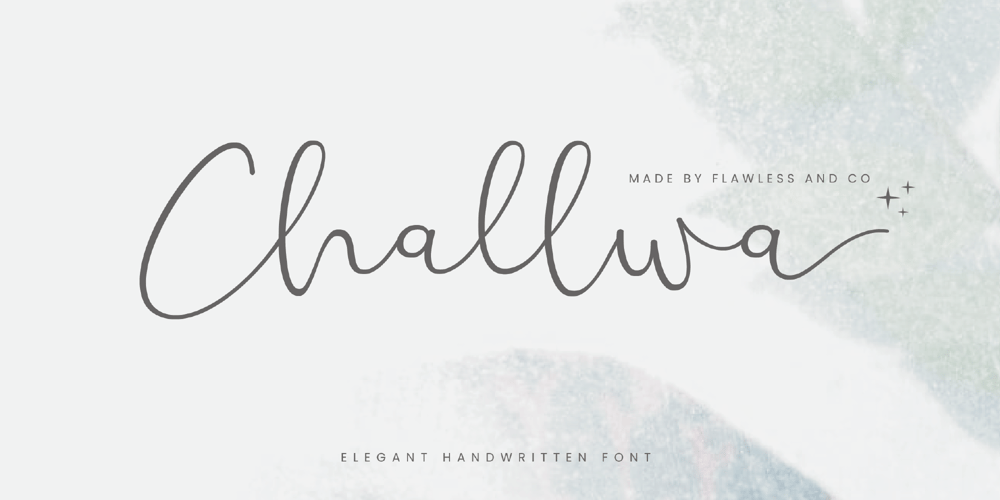
Challwa Font Family was designed by Achmad Yani and published by Flawlessandco. Challwa contains 1 styles and family package options. Introducing “Challwa” – an exquisite and elegant handwritten font that adds a touch of sophistication and refinement to your designs. With its graceful letterforms and refined strokes, Challwa embodies timeless beauty and effortless elegance.There’s some connected letters and some alternates that suitable for any graphic designs such as branding materials, t-shirt, print, business cards, logo, poster, t-shirt, photography, quotes .etcThis font support for some multilingual. Also contains uppercase A-Z and lowercase a-z, alternate character, numbers 0-9, and some punctuation.If you need help, just write me! Thanks so much for checking out my shop!